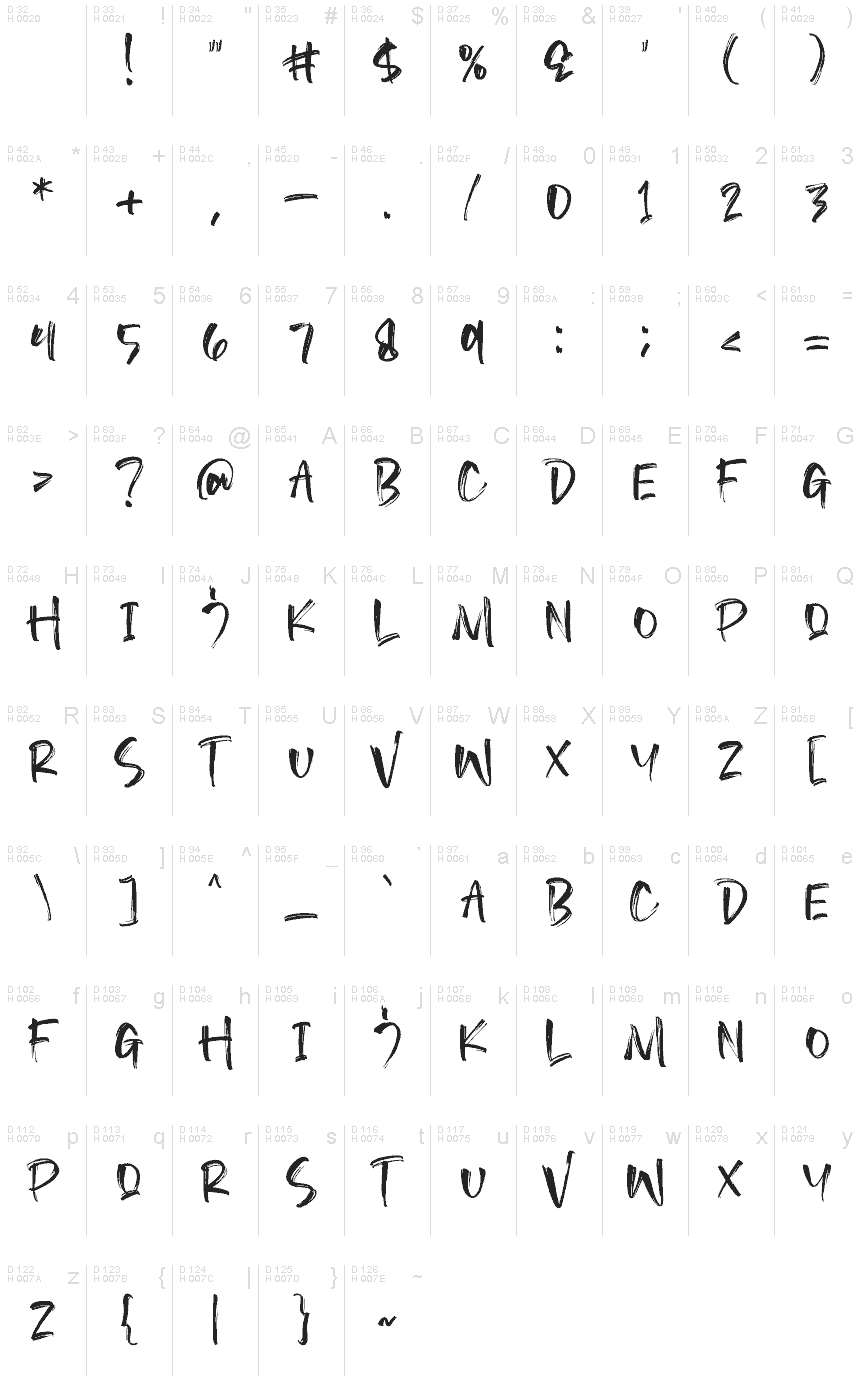
Hangover
Hangover font from Perspectype Studio - Letterena.com is a brush typeface that combines the creativity of the designer’s artistic flair with influences from grunge design. The truly expressive nature of this textured font elevates any standard design to an exciting level filled with appeal. A slightly chaotic and casual personality is attributed to this one-of-a-kind resource that works perfectly when you want your texts to stand out!